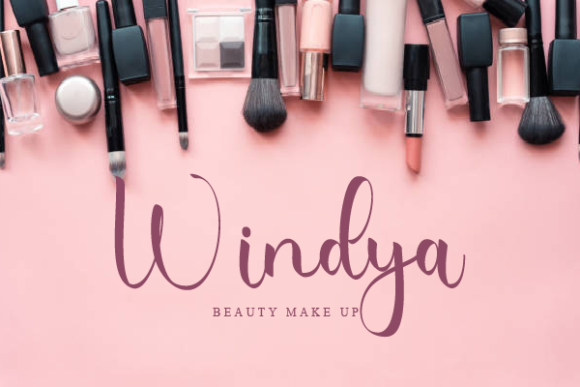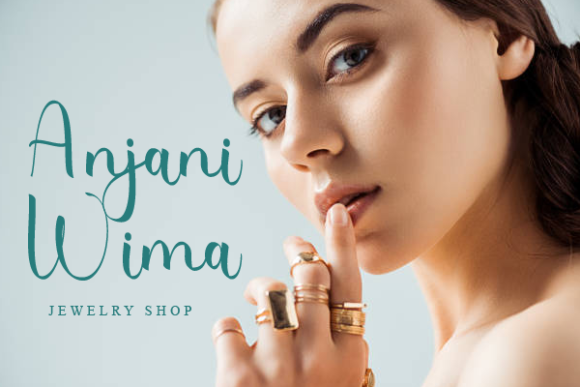
Risyala Font
db-ku.com - Script & Handwritten -- This elegant and fun calligraphy font is a great way to add a playful touch to your next project, be it a logo, stationery, poster, or something else.